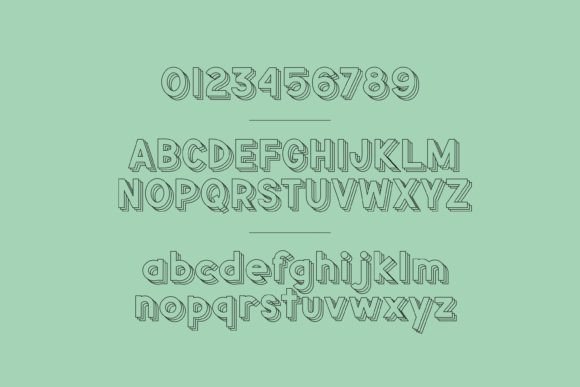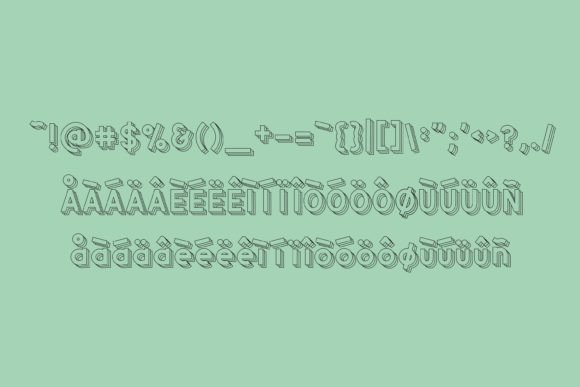
Introduction to Gum Pop Font
Remember the thrill of unwrapping a fresh pack of gum as a kid? The rush of excitement as you popped open the wrapper, releasing the sweet scent of sugar and fun? That same nostalgic energy is captured in the vibrant, retro-inspired Gum Pop Font. As designers, we’re always on the lookout for the perfect design resource to elevate our creative projects, and this font is sure to be a game-changer.
With its bold, layered look and high-quality design, Gum Pop Font is the perfect addition to any designer’s toolkit. Whether you’re working on a playful brand, a party invite, or anything in need of a quirky charm, this font is sure to bring a delightful vintage vibe with a modern twist. And the best part? It’s available for free download, making it an accessible design resource for designers of all levels.
Key Features of Gum Pop Font
- High-quality, unique font style suitable for creative projects requiring a playful touch
Honest Review: Gum Pop Font
I recently stumbled upon the Gum Pop Font, a free design resource that’s been making waves in the creative community. I decided to give it a try and see if it lives up to the hype.
- Unique and playful aesthetic that’s perfect for a fun, creative project.
- High quality font that’s crisp and clear, even when used on a transparent background.
- Limited character set, which may not be suitable for longer texts or body copy.
- No bold or italic variations, which can limit its use in certain design scenarios.
Overall, I’m impressed with the Gum Pop Font. It’s a great addition to any designer’s toolkit, especially for projects that require a fun and playful vibe. While it may have some limitations, its unique aesthetic and high quality make it a valuable resource for any creative project.
Tips for Getting the Most Out of Gum Pop Font
Use Gum Pop Font in creative projects where you want to add a touch of whimsy and fun. It pairs well with bright colors and bold graphics. To get the most out of the font, use a high-quality design resource like Gum Pop Font to ensure crisp and clear text. Additionally, consider using a transparent background to make the text stand out.
Gum Pop Font is commonly used in branding, marketing materials, and social media graphics. It’s also a great choice for creating eye-catching headlines and titles. With its unique and playful design, Gum Pop Font is perfect for adding a touch of personality to your design projects.